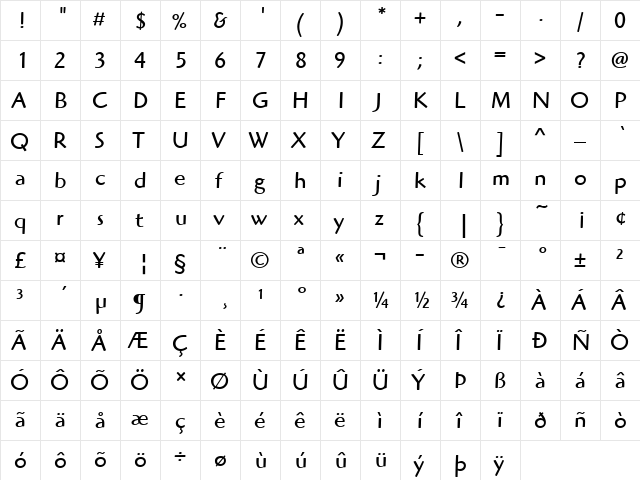
ITCHighlander LT Book Regular
Design Context for ITCHighlander LT Book Typeface
ITCHighlander LT Book is a composed and adaptable typeface that performs quietly and consistently across a wide range of design contexts. Its slender proportions lend an understated elegance to any composition.